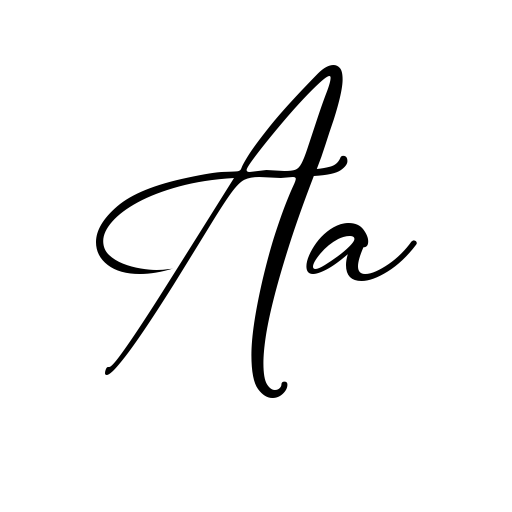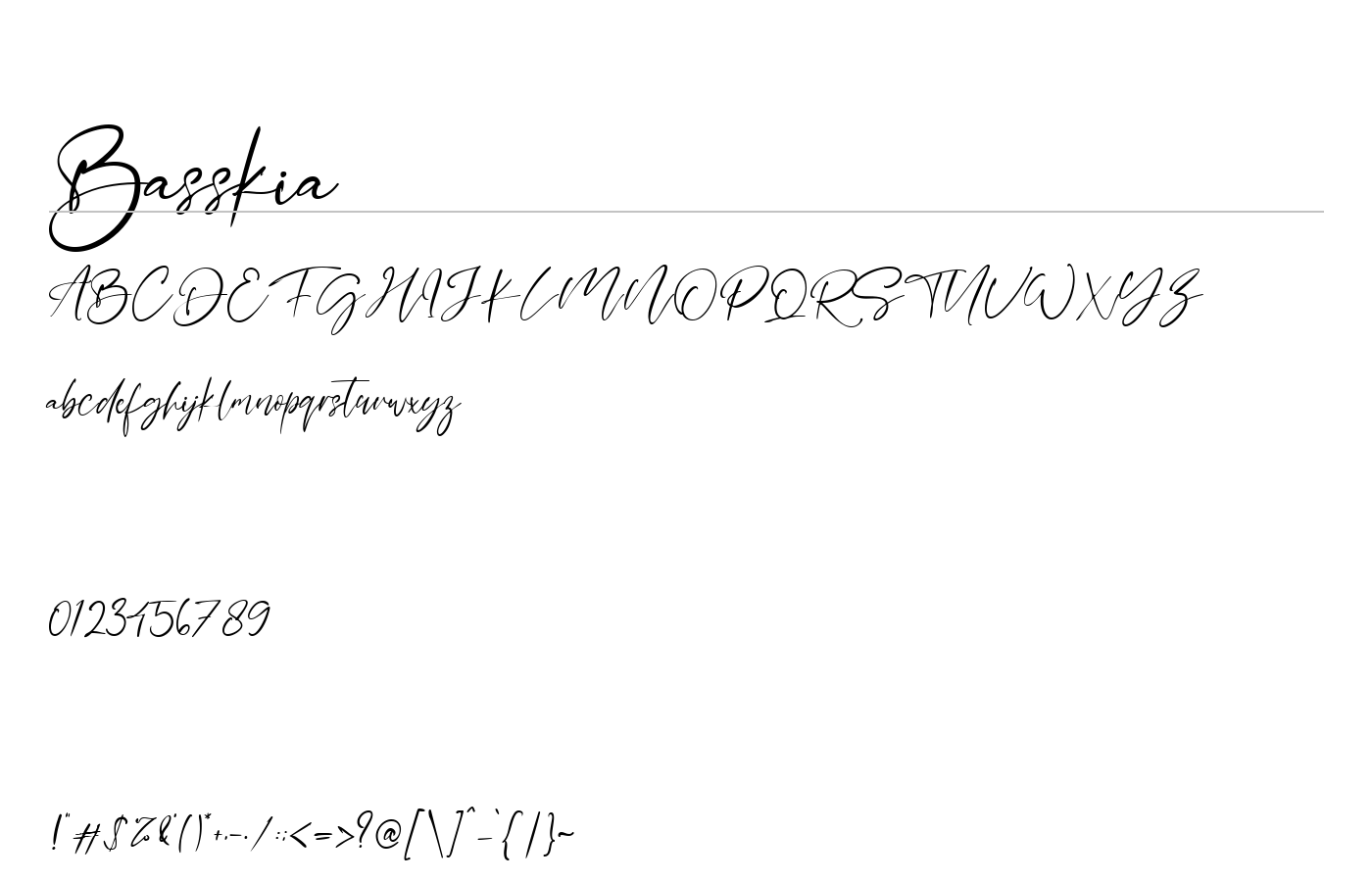
Basskia is a delicate, elegant script font characterized by its flowing, hand-lettered style with slender, slightly varied stroke widths and graceful letterforms. It features both uppercase and lowercase letters with fluid connections, giving a personal and artistic touch, making it ideal for invitations, branding, and stylish editorial designs that seek a refined yet approachable feel. Its light, airy appearance adds sophistication while maintaining readability in display use.
Basskia Font
About Basskia Font